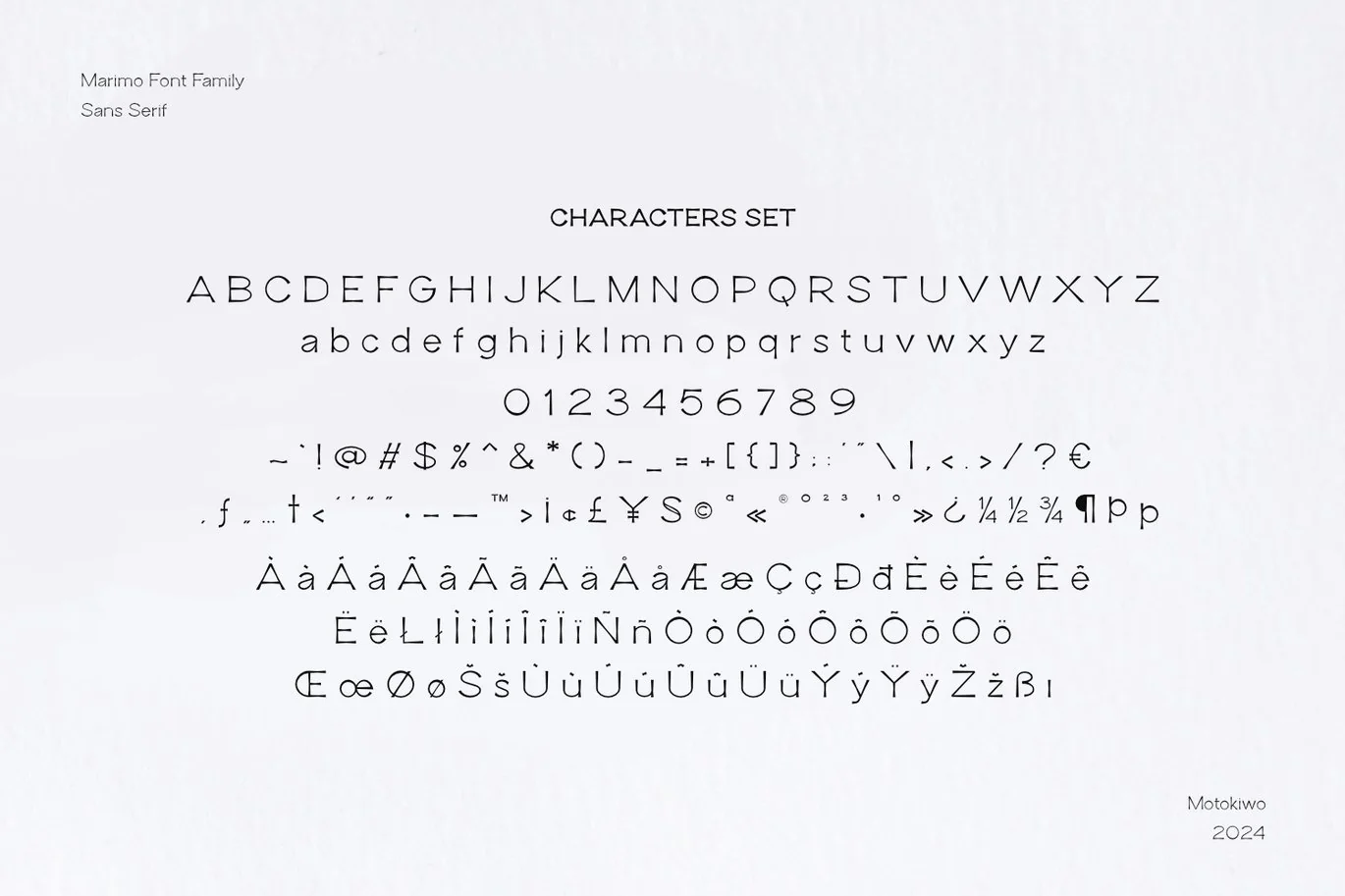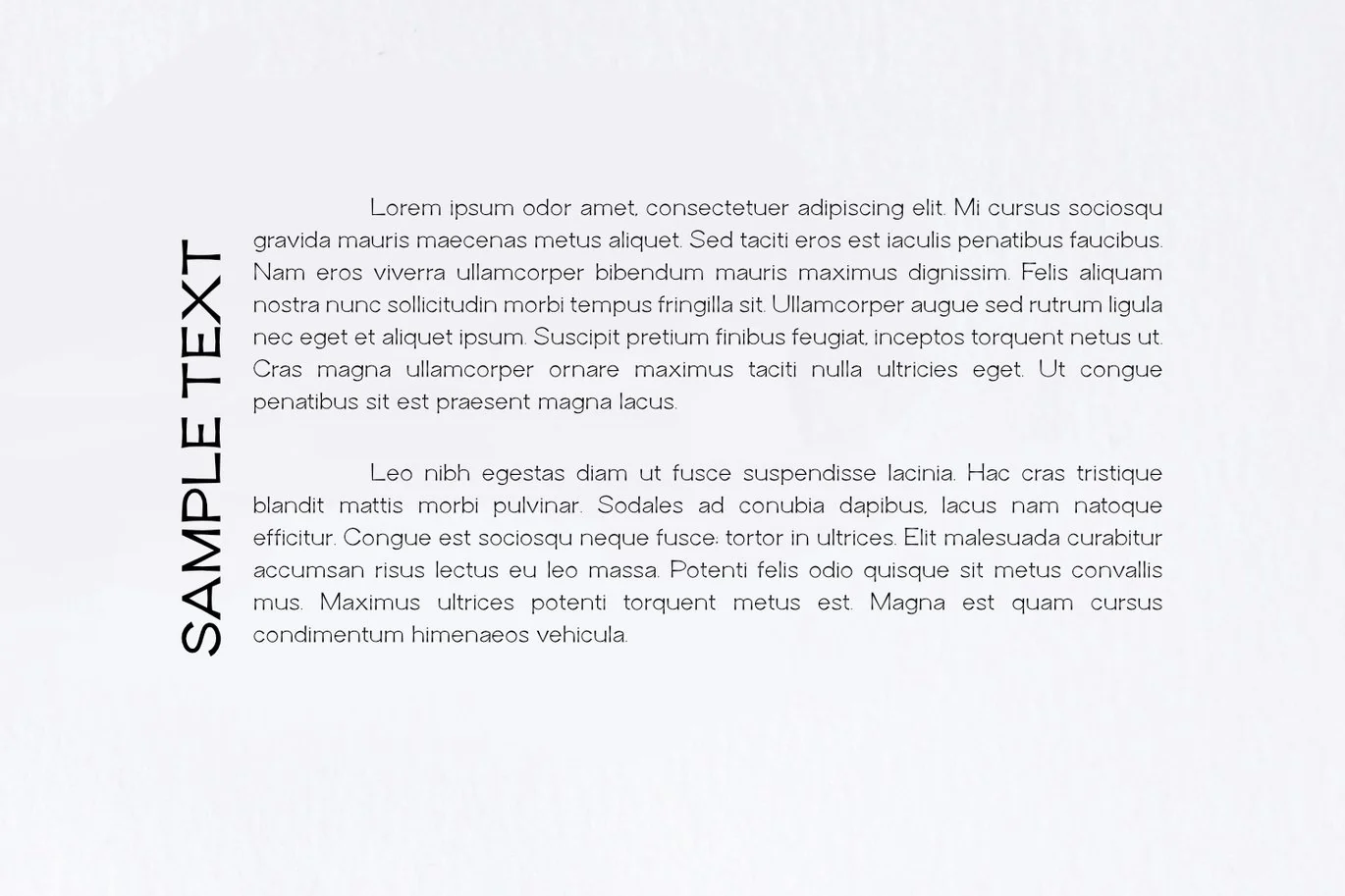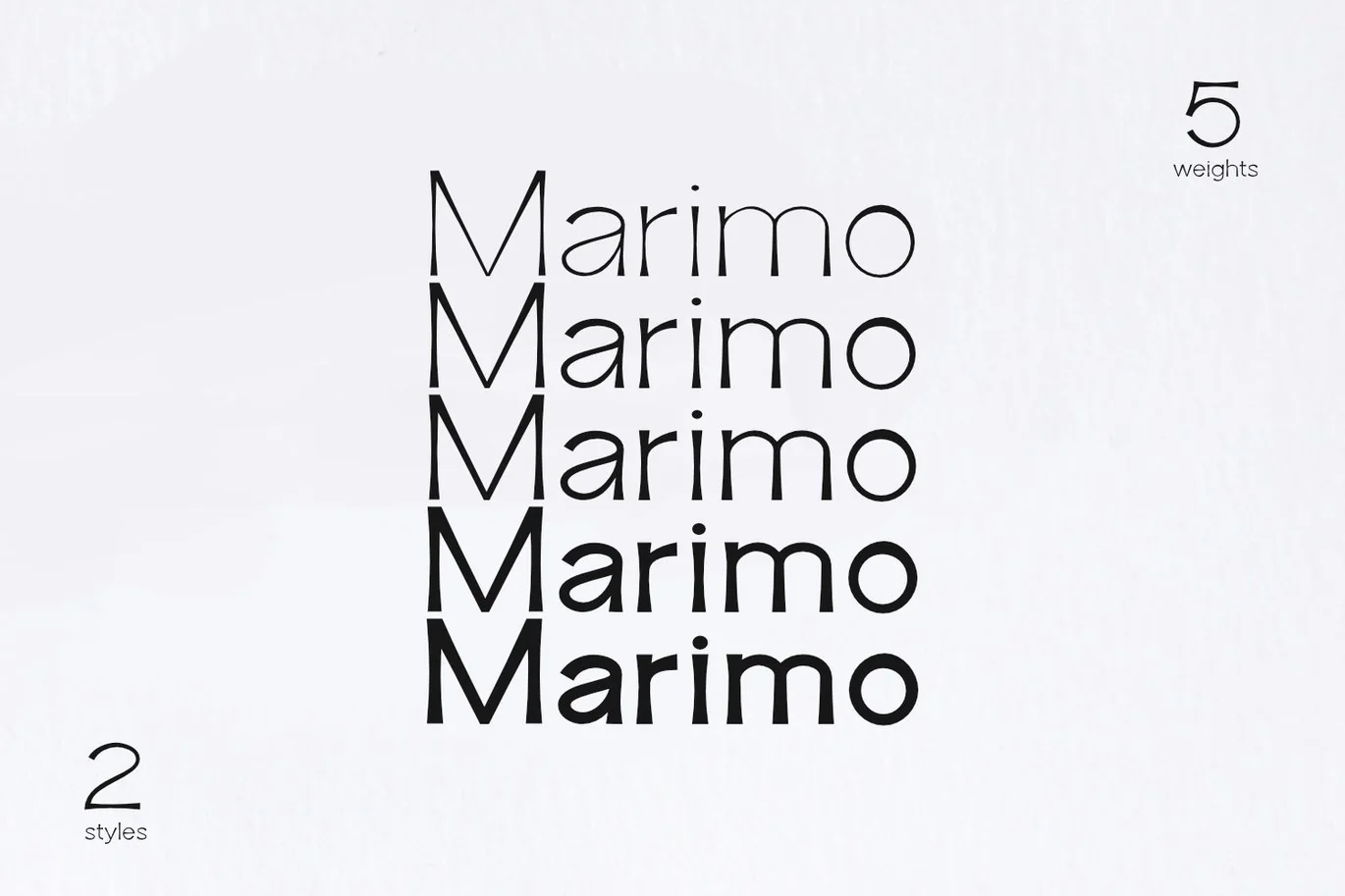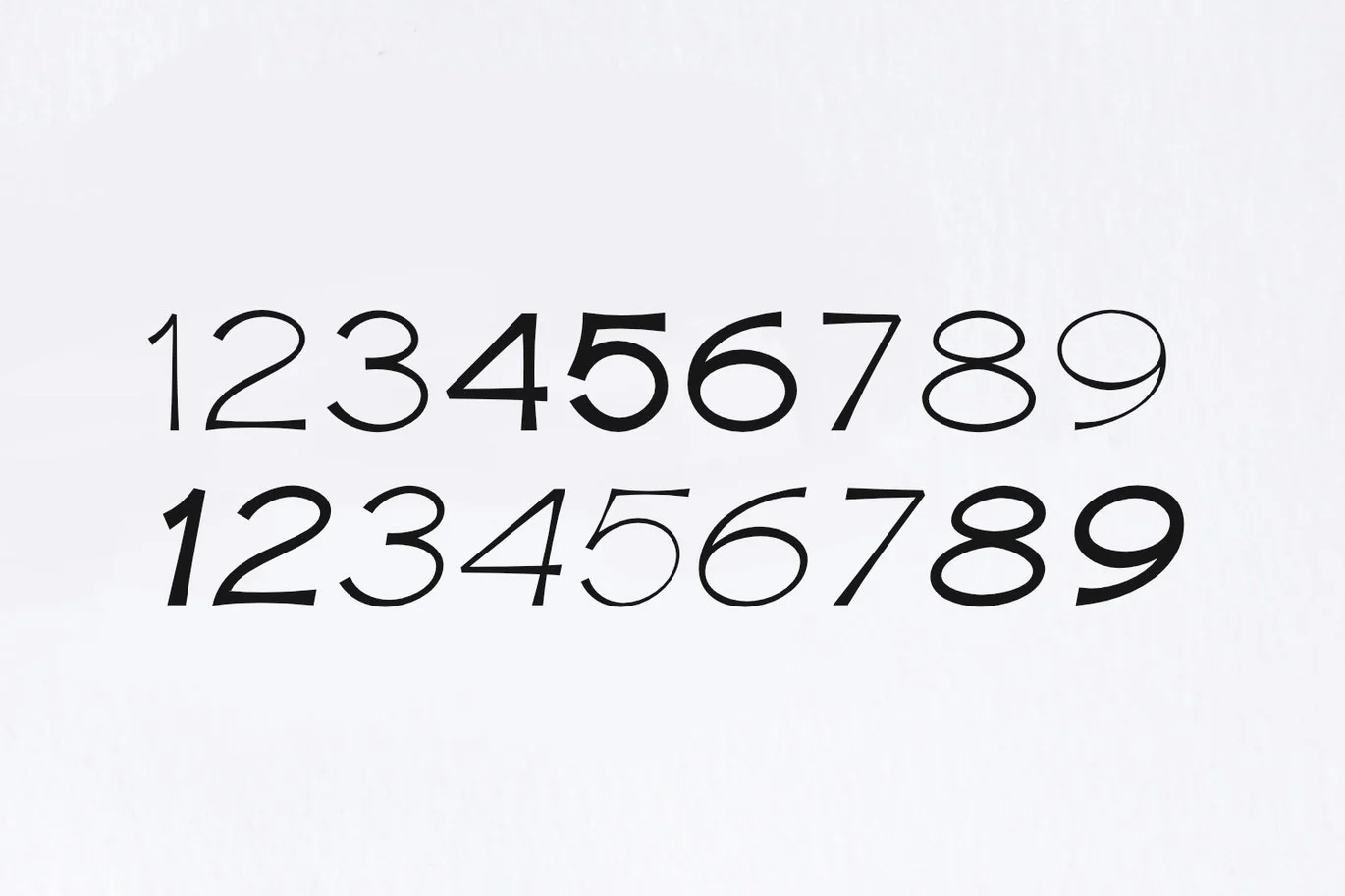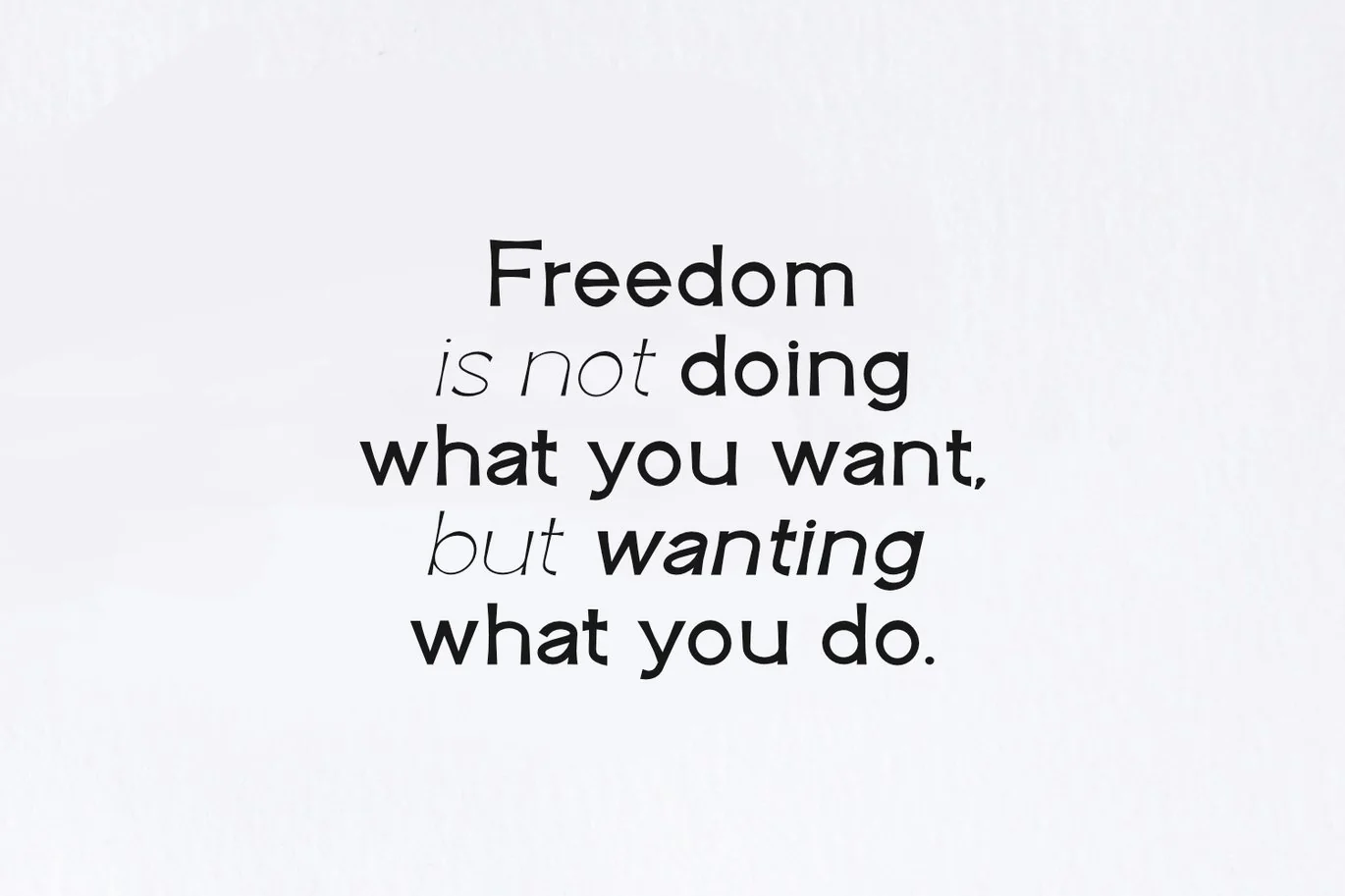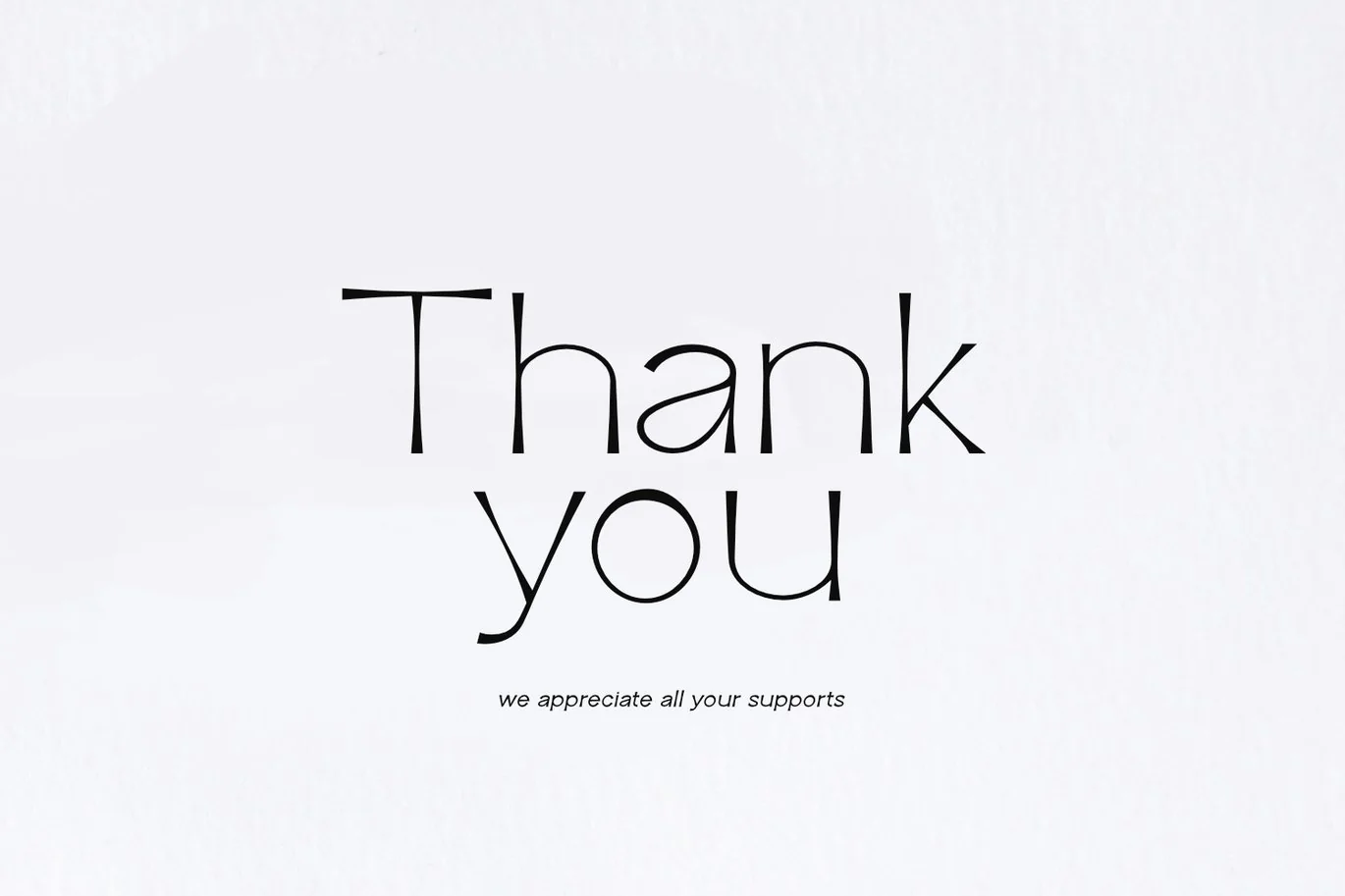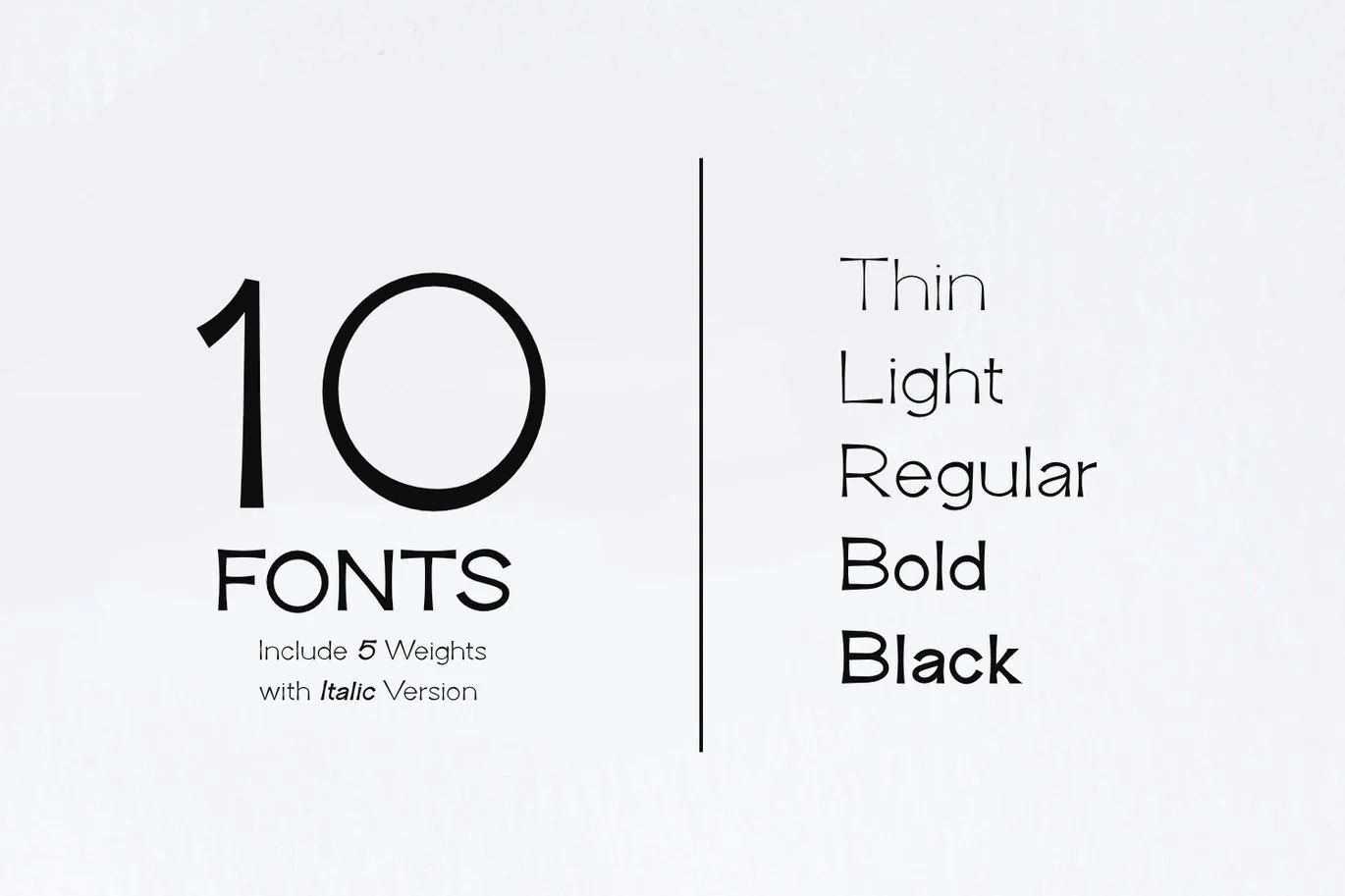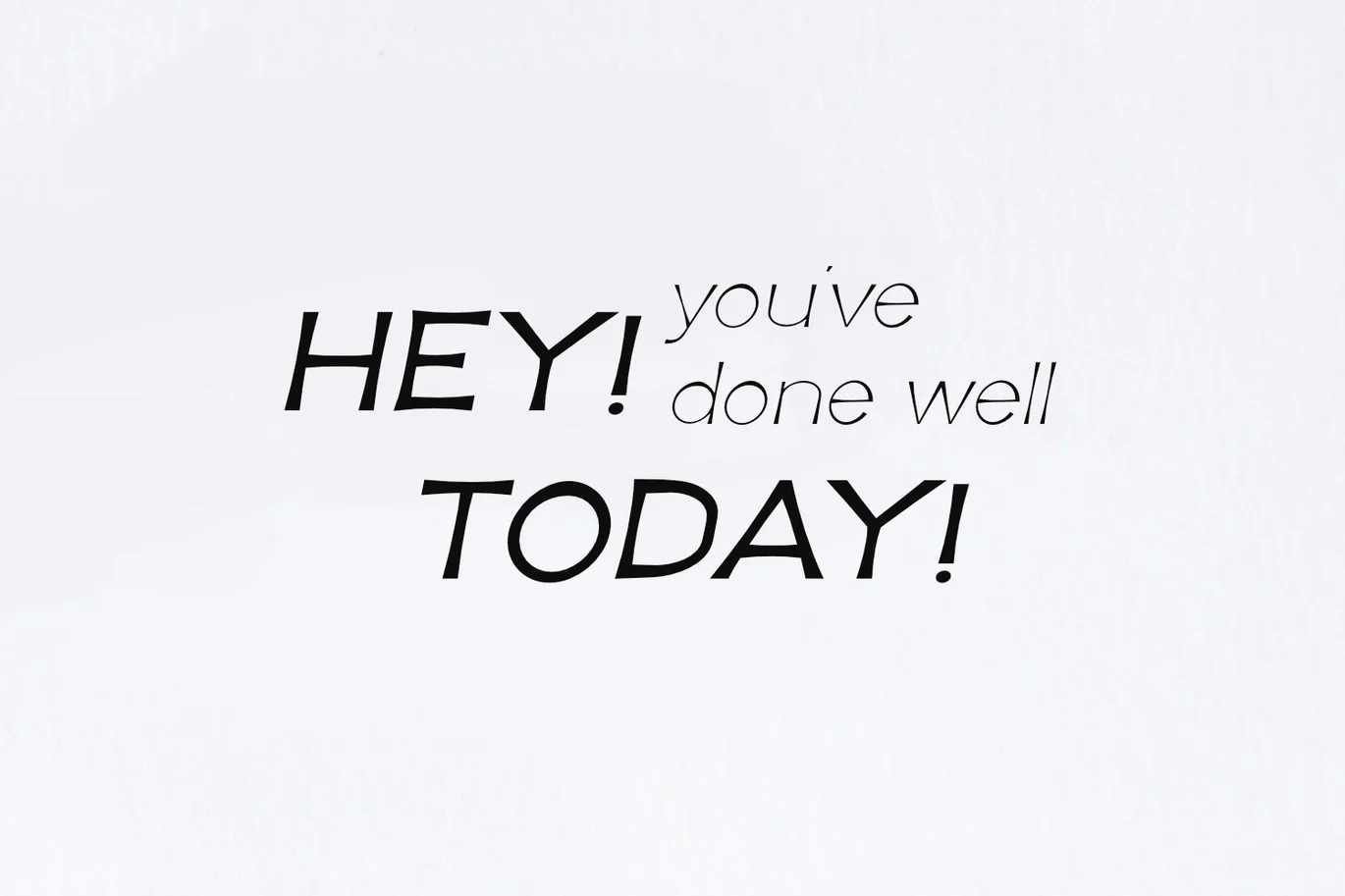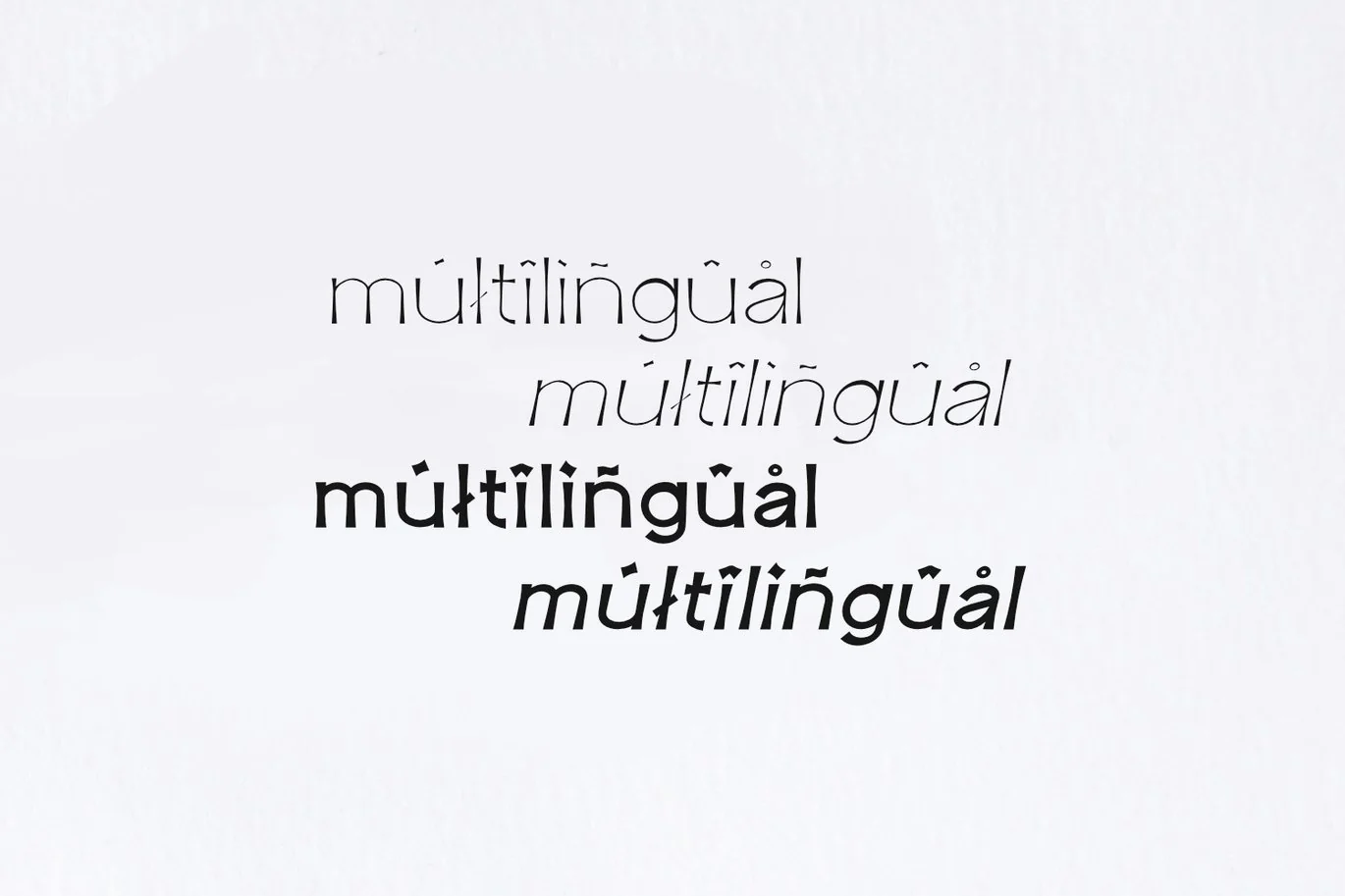
Marimo Font Family
Marimo is a versatile font family that features eight distinct weights along with italic version, making it suitable for a wide range of design applications. Its unique character design combines elegance and readability, allowing for effective communication in both print and digital media. Ideal for branding, editorial design, and advertising, Marimo enhances visual appeal while maintaining clarity and professionalism.
- 10 fonts (5 fonts weights: thin, light, regular, bold, black + italic version for each weights)